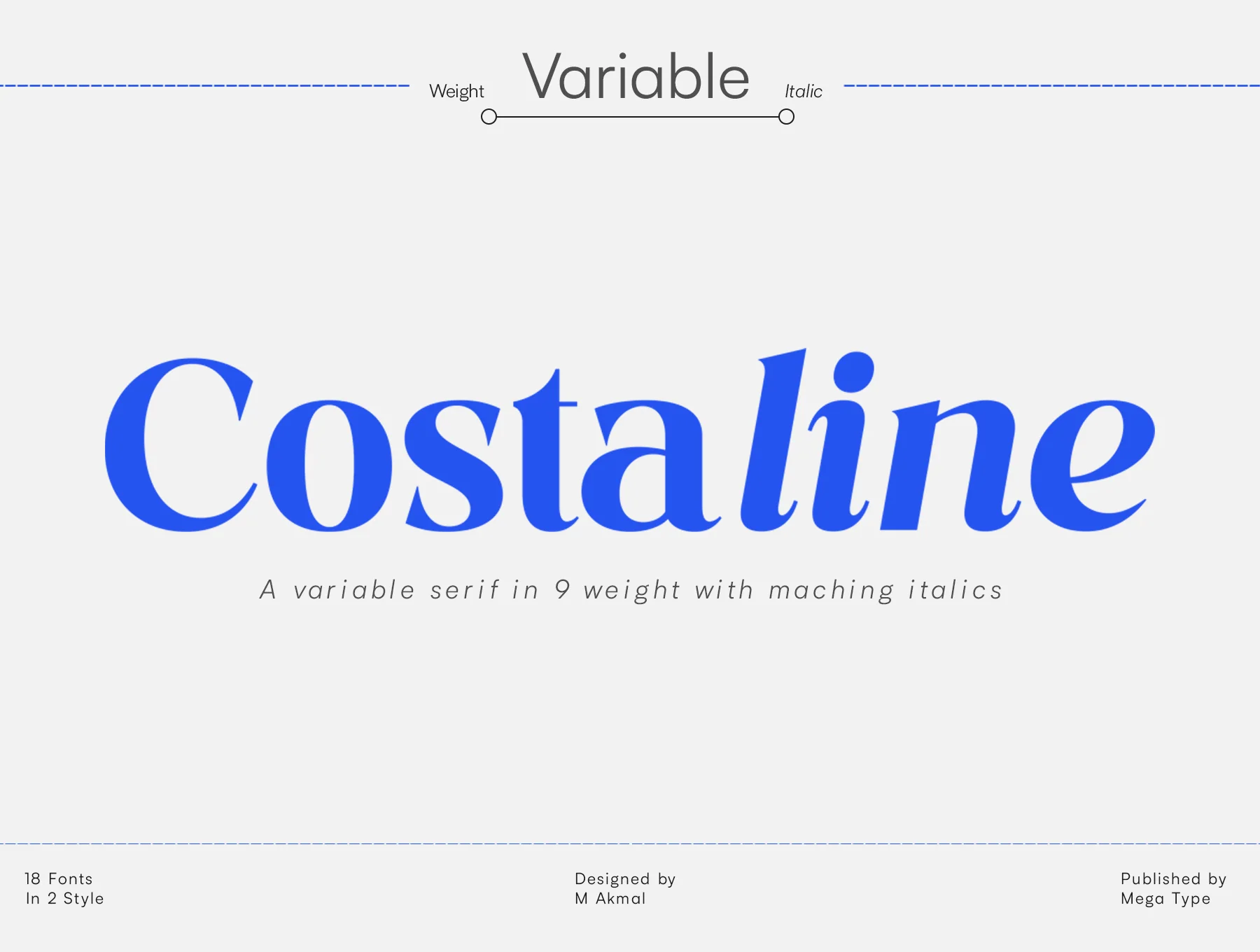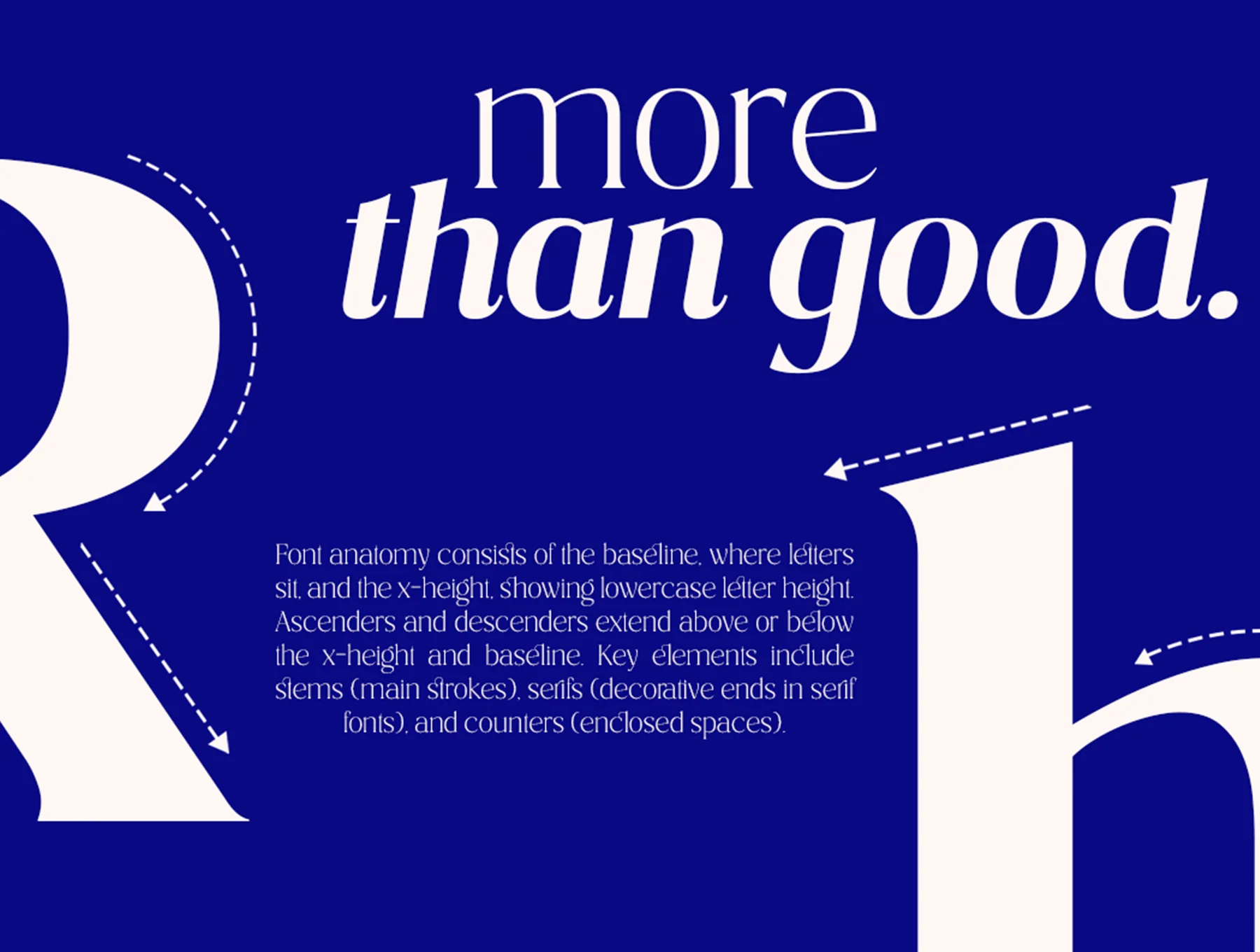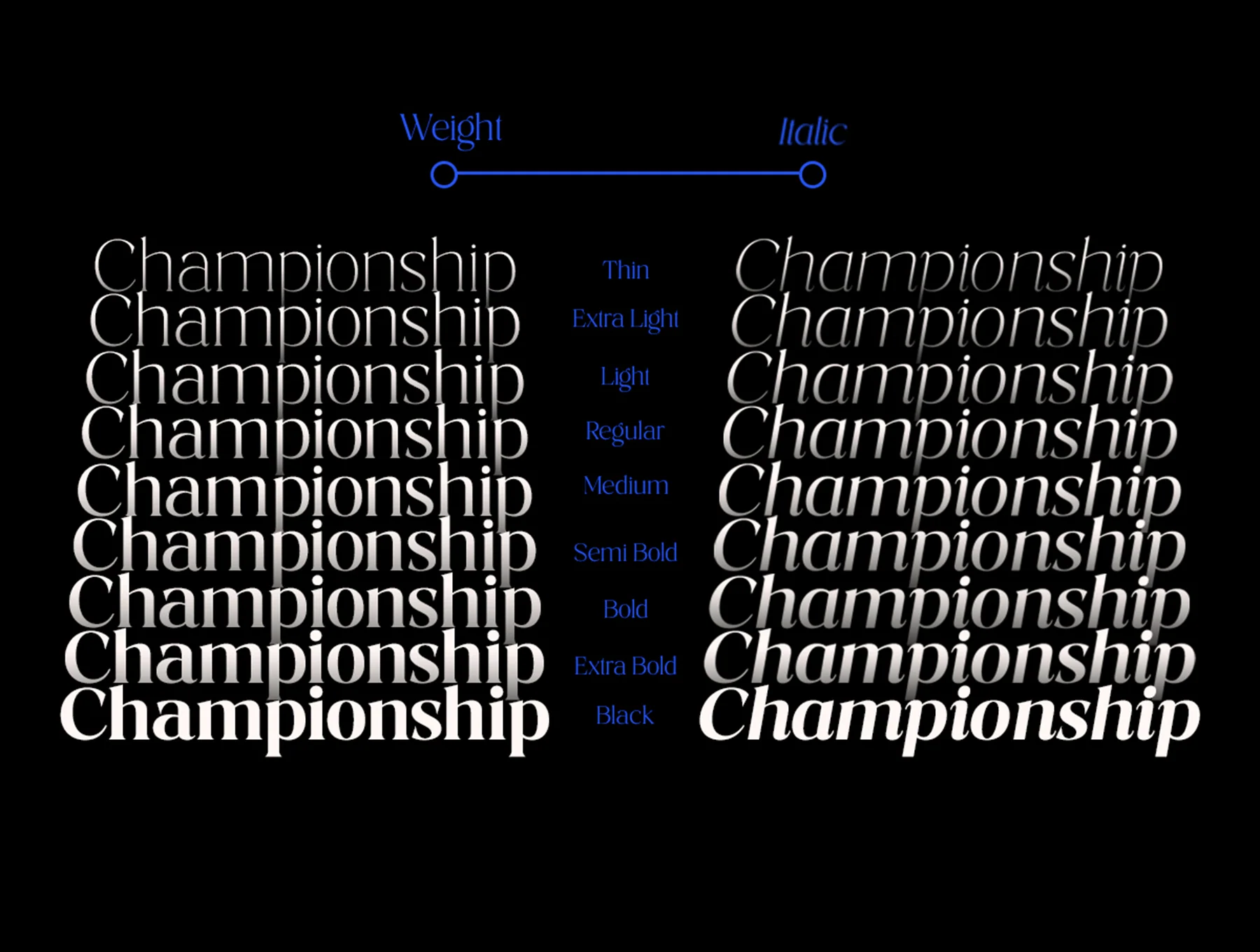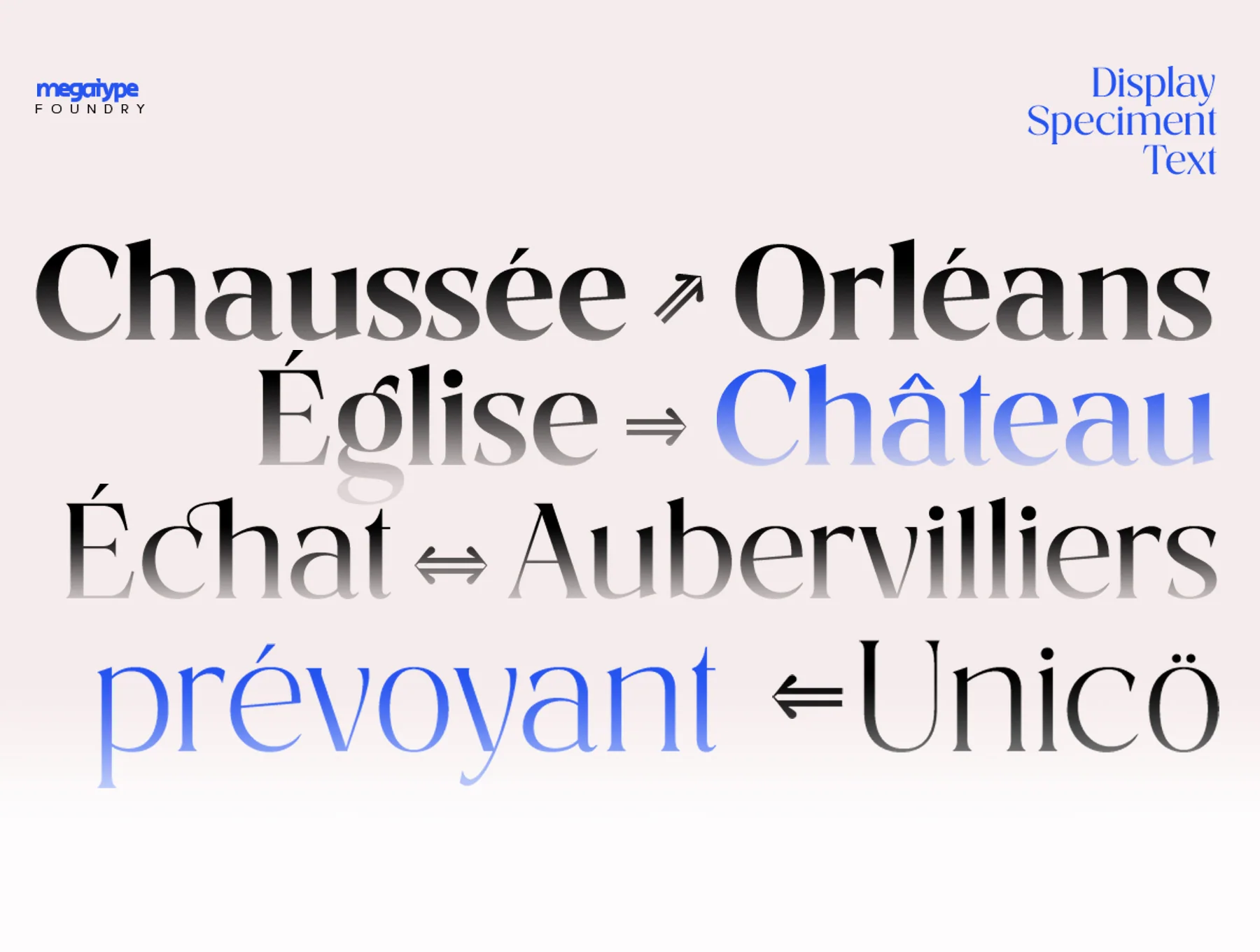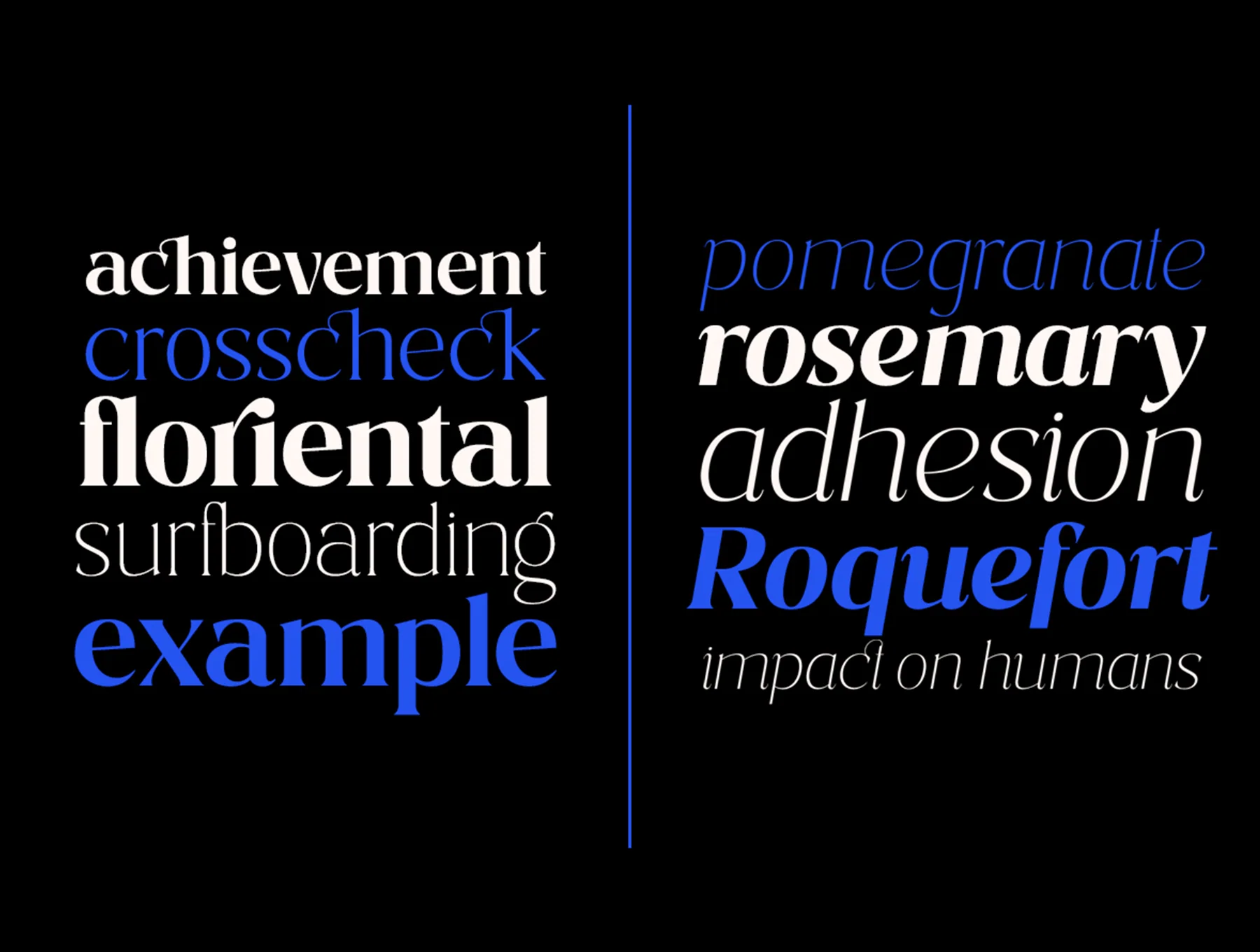
Costaline Font Family
Costaline is an elegant modern serif font with timeless classic charm
OpenType capabilities
Adjustable font family
Latin glyph support for multiple languages
Costaline is an elegant modern serif with timeless character. It offers 18 fonts in roman and italic styles, from Thin to Black, plus Regular and Italic variable versions. Its smooth curves, full stems, balanced contrast, refined italics, ligatures, and multilingual support suit editorials, logos, branding, packaging, ads, web design, headlines, and text.